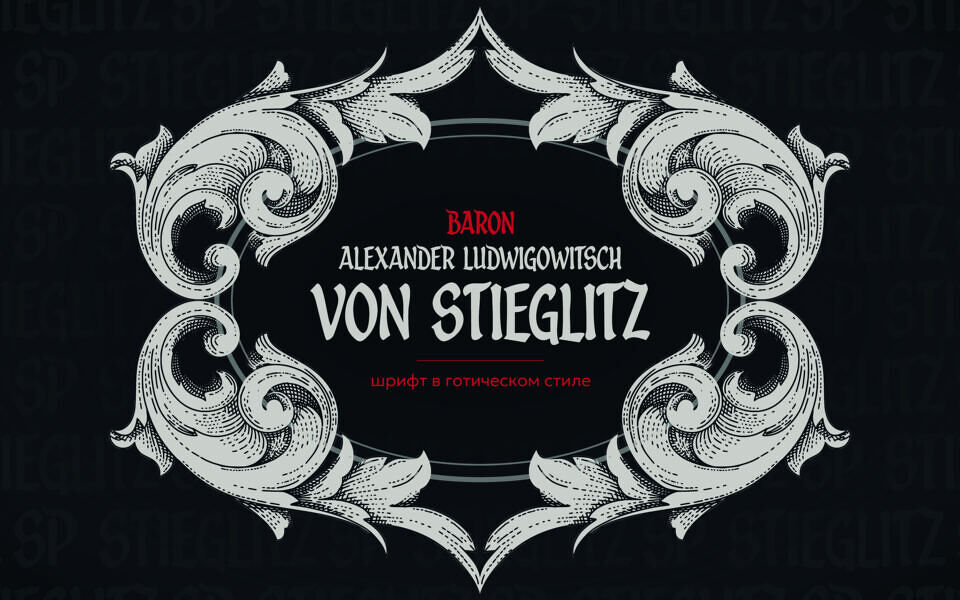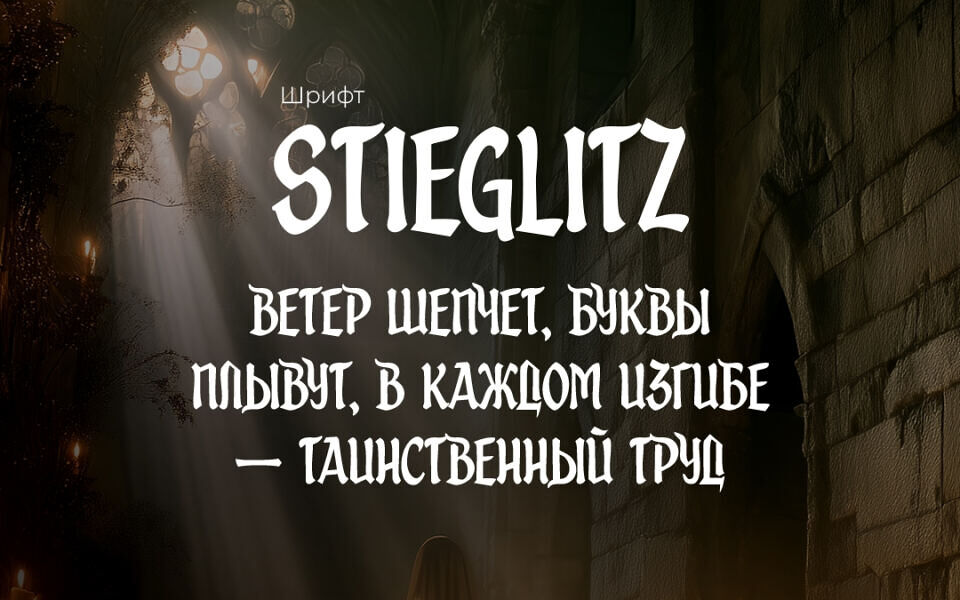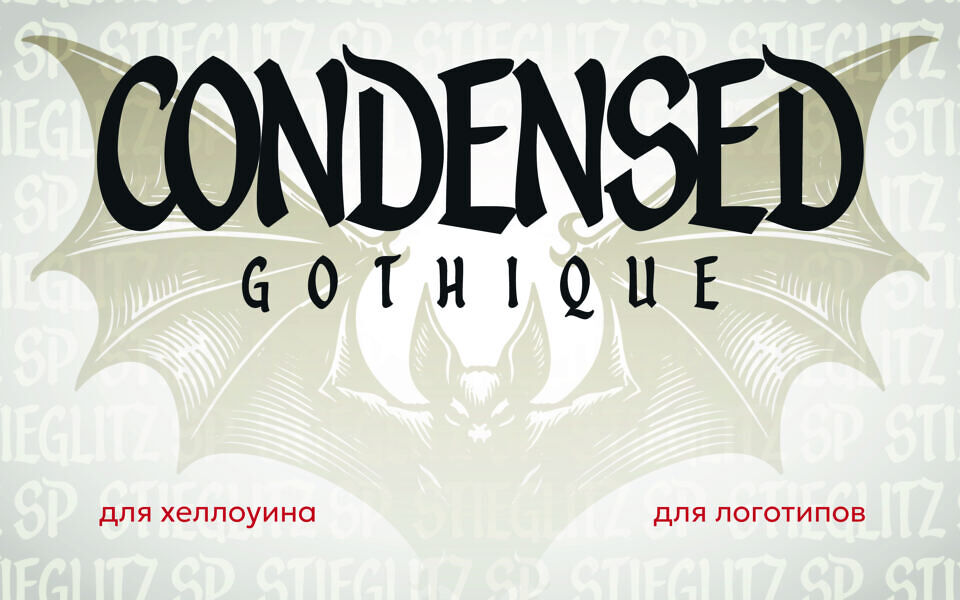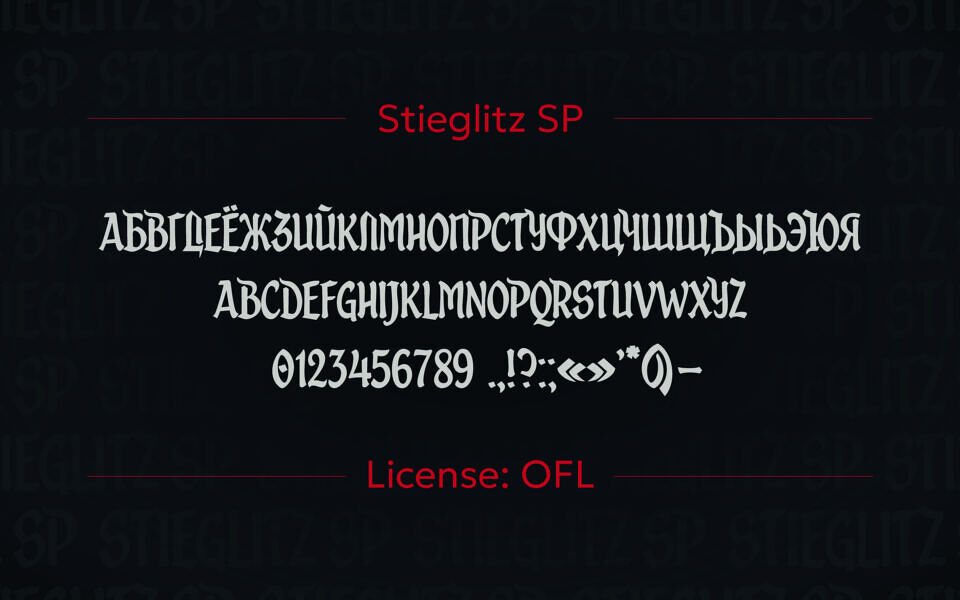
Stieglitz SP is a striking free gothic font that captures a mysterious and spooky atmosphere. Inspired by “Gothique” and blackletter styles, its condensed, sharp letterforms are perfect for Halloween themes, fantasy logos, and horror-inspired headlines.
This versatile font includes full Latin and Cyrillic character sets, numbers, and punctuation. Licensed under the OFL (Open Font License), Stieglitz SP is completely free for both personal and commercial use, making it an essential addition to your design toolkit.